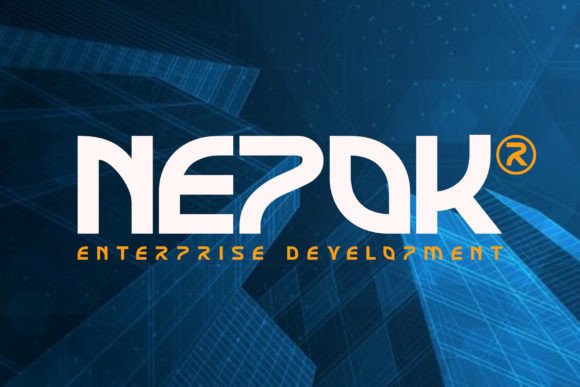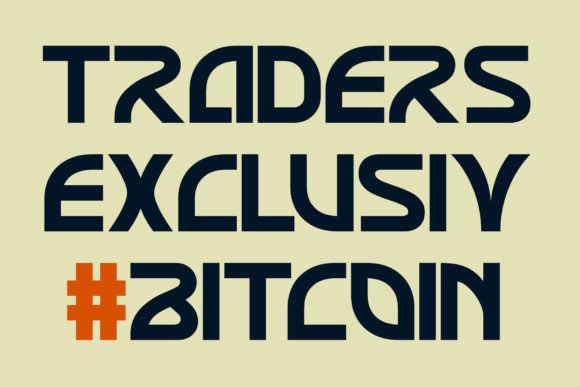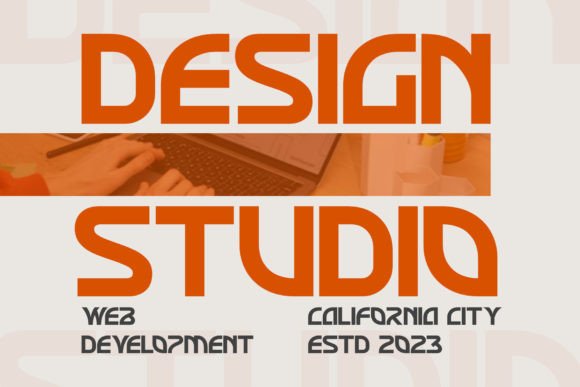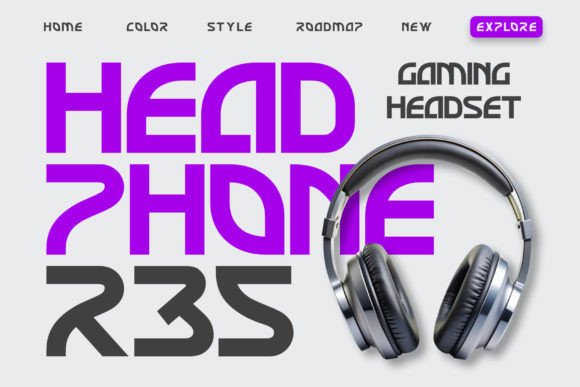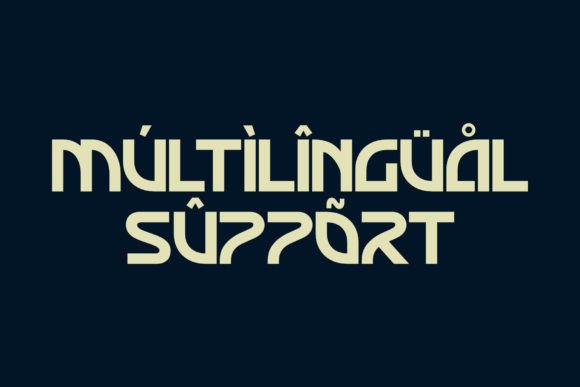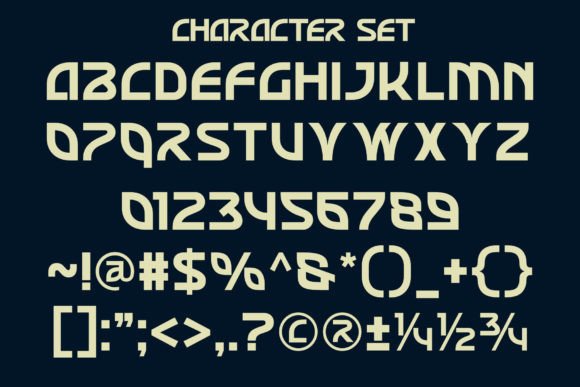
Introduction to Roba Font
The moment of truth: you’re about to launch a high-quality creative project, but something’s missing – a typography game-changer that leaves a lasting impression. As a designer, you know the importance of a well-crafted typeface in elevating your brand identity. Enter Roba Font, a cutting-edge design resource that’s set to revolutionize the way you create.
With its mathematically perfected details and versatile nature, Roba Font is the perfect companion for your next design project. Whether you’re working on a corporate branding campaign or a digital ad, this font is sure to captivate your audience. And the best part? It’s available for a free download, making it an accessible design resource for designers of all levels.
Key Features of Roba Font
- High-quality, professional font suitable for creative projects, such as graphic design, branding, and digital art.
- Roba Font is designed with a unique, modern aesthetic, making it perfect for creative projects that require a touch of sophistication and elegance.
- Includes a comprehensive character set, supporting a wide range of languages and characters, making it a versatile design resource.
Honest Review: Roba Font
As a designer, I’m always on the lookout for high-quality fonts that can elevate my creative projects. I recently had the chance to try out the Roba Font, and I’m excited to share my thoughts on this design resource.
What works well: ✨ The Roba Font has a beautiful, elegant design that’s perfect for titles, headings, and other display typography. The font comes with a transparent background, which makes it easy to overlay on top of images or other design elements. The font is also highly customizable, with a wide range of weights and styles to choose from.
What doesn’t work so well: ⚠️ One of the limitations of the Roba Font is its limited character set. While it’s great for titles and headings, it’s not as versatile as some other fonts when it comes to body text. Additionally, the font can be a bit pixelated at small sizes, which may not be ideal for high-resolution designs.
Overall, I’m impressed with the Roba Font’s high-quality design and versatility. While it may have some limitations, it’s a great resource to have in your design toolkit. Plus, it’s a free download, which makes it a great option for designers on a budget.
- Perfect for titles, headings, and display typography
- Highly customizable with a wide range of weights and styles
- Limited character set
- Can be pixelated at small sizes
Roba Font is a high-quality design resource that offers a wide range of creative possibilities for your next project. With its unique and stylish design, this font is perfect for designers looking for a free download to enhance their work.
Tips for Getting the Most Out of Roba Font
To get the most out of Roba Font, try using it with a transparent background to create a stylish and modern design. You can also experiment with different font sizes and colors to add depth and interest to your project.
Roba Font is perfect for a wide range of creative projects, including logo designs, business cards, and social media graphics. Its unique design and high-quality features make it a great choice for designers looking to create something truly special.
Alternatives to Roba Font
Oswald is a high-quality sans-serif font ideal for creative projects requiring a modern look. It’s a free download and suitable for both print and digital designs. Oswald’s clean and simple design makes it a great choice for headings and titles.
Compared to Roba Font, Oswald has a more geometric and minimalist feel. While Roba Font has a more elegant and cursive touch, Oswald’s clean lines make it a better choice for designs requiring a more modern and high-tech look.
Q: Is the Roba Font suitable for large-scale designs?
Yes, the Roba Font is designed to be scalable and suitable for large-scale designs. With its high-quality design and transparent background, you can use it confidently in your creative projects, from business cards to billboards. However, please note that font legibility may vary depending on the size and resolution of your design.